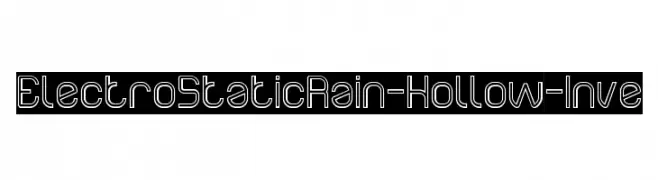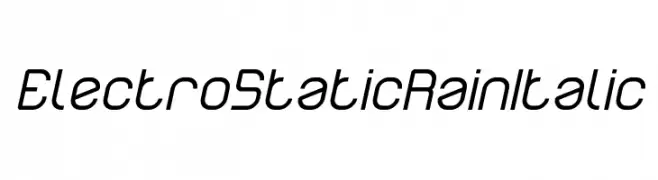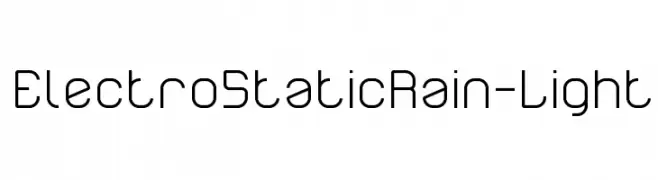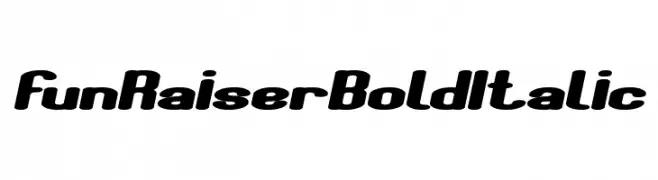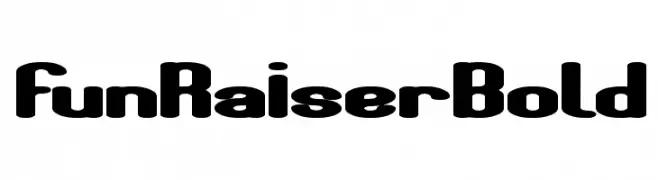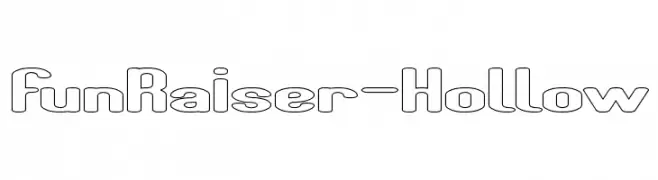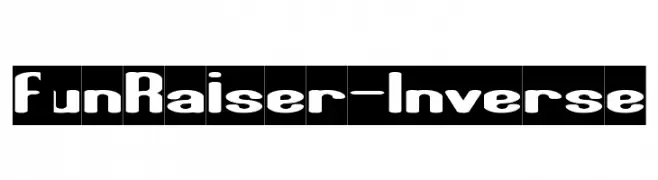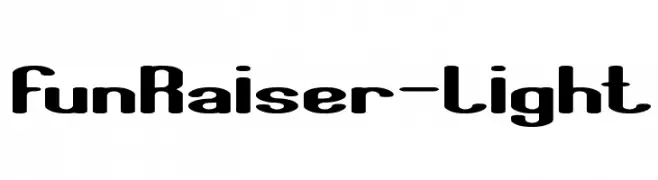
A bold, geometric font with a modern and futuristic design.
A modern, geometric font with clean lines and rounded edges, ideal for tech and innovative designs.
A futuristic, geometric font with hollow, outlined characters.
A sleek, italic font with a futuristic and modern design.
A bold, playful font with rounded, smooth characters and minimal contrast.
A bold, hollow, inverse font with a playful and modern design.
A bold, playful font with rounded edges and a strong presence.
A playful and rounded font with smooth curves and a whimsical touch.
A playful, modern hollow font with rounded edges and consistent proportions.
A bold, playful, and italic font with rounded characters and a dynamic style.